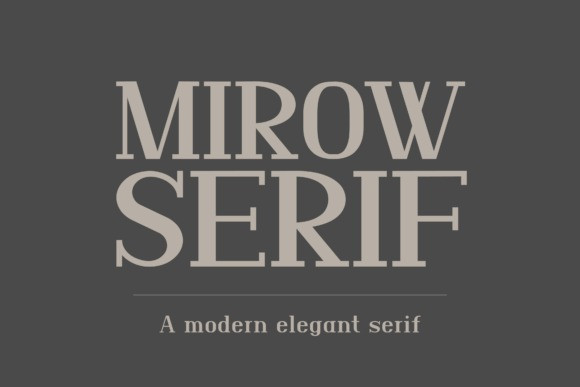
Mirow Serif Font, a commanding display typeface. This font features structural, high-contrast all-caps letterforms uniquely characterized by their razor-sharp slab serifs, heavy geometric stems, and perfectly balanced, symmetrical counters that seamlessly bridge the gap between traditional architectural masonry and modern luxury corporate branding. With its substantial visual presence and quiet, upscale confidence, Mirow Serif is the premier choice for independent interior design studio logos, luxury hotel signage, premium fashion house typography, high-end editorial layouts, and high-impact social media headings.